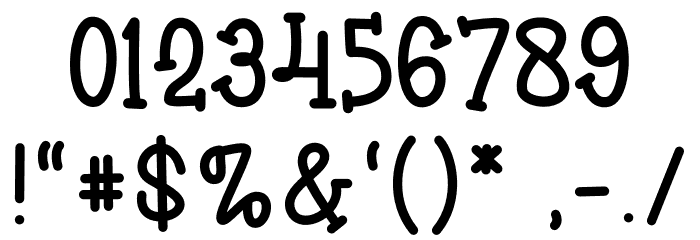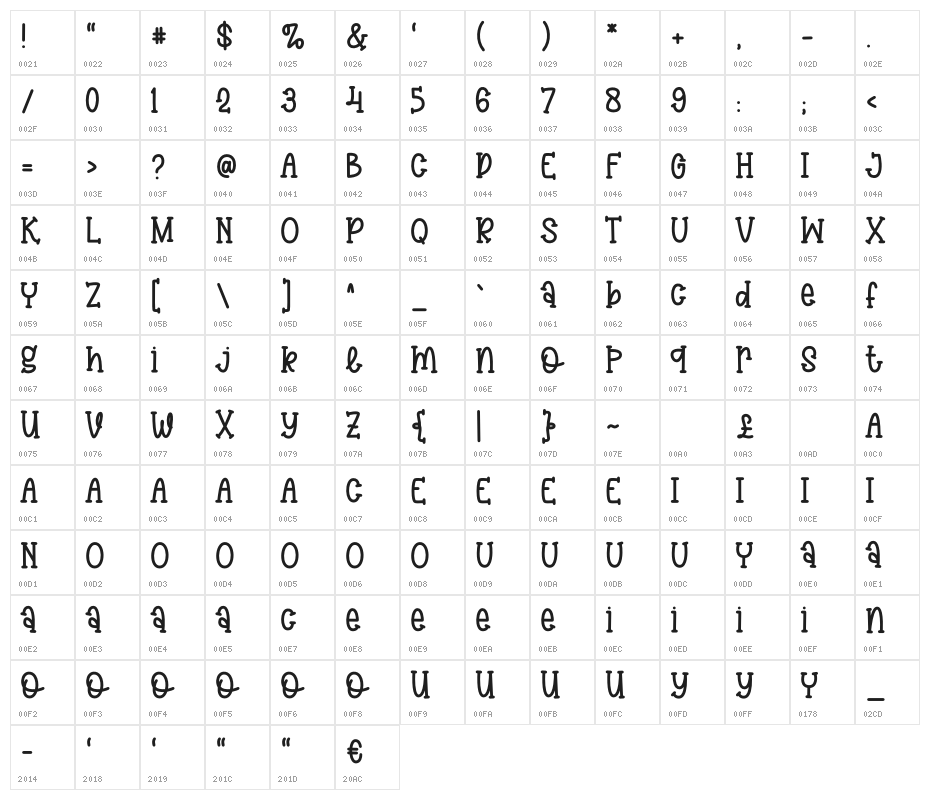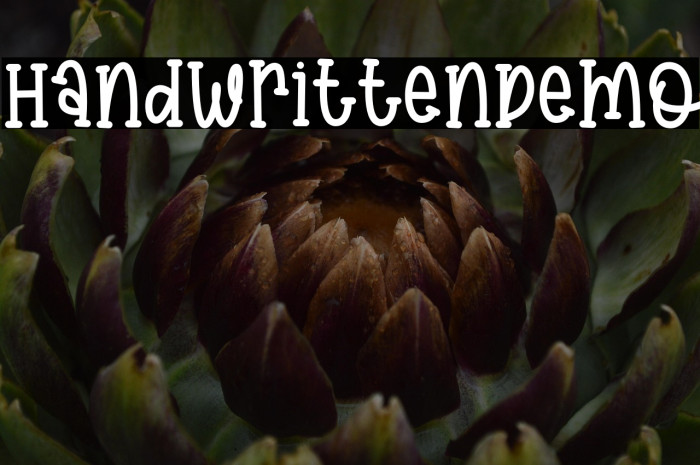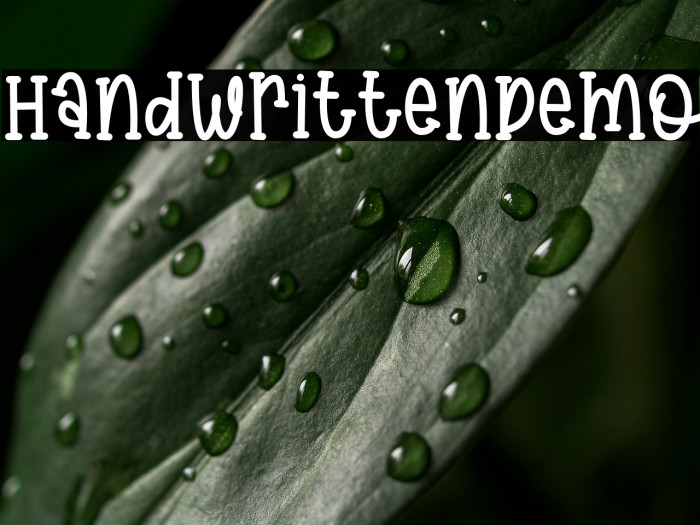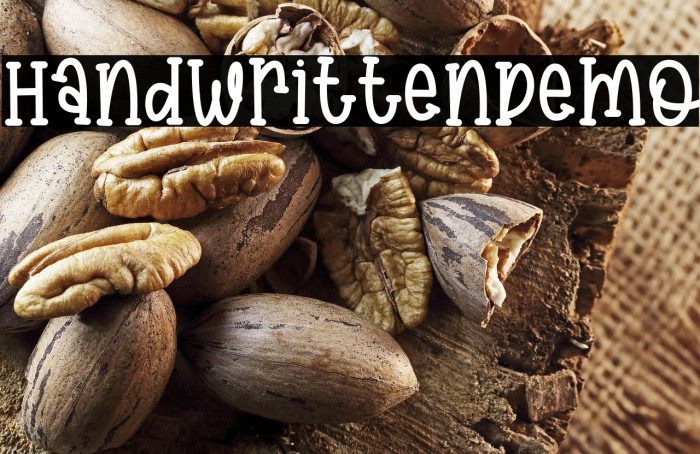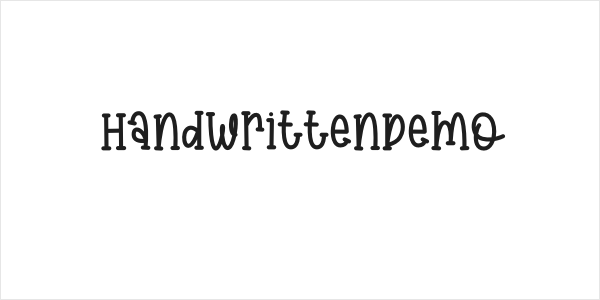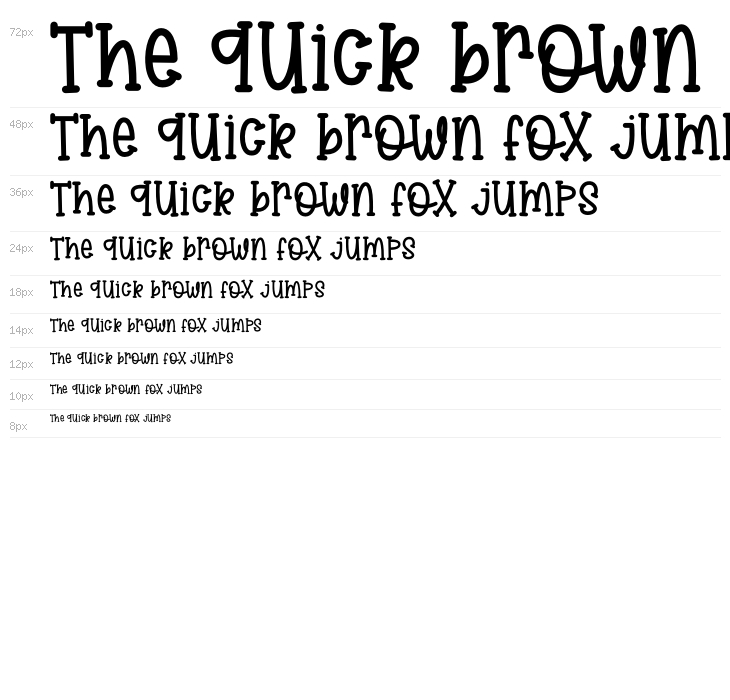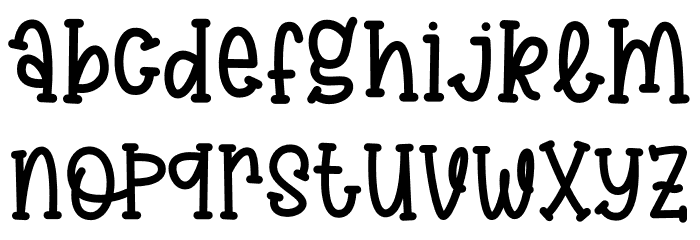
HandwrittenDemo Font
HandwrittenDemo Description
This font exudes a playful and whimsical charm, characterized by its handwritten style that mimics the fluidity and irregularities of natural handwriting. The letters are bold and rounded, with a consistent stroke width that gives it a friendly and approachable appearance. The uppercase and lowercase letters maintain a cohesive look, while the numerals and special characters integrate seamlessly, enhancing its versatility. The font's unique personality is evident in its slightly exaggerated curves and loops, making it ideal for projects that require a touch of creativity and fun.
| Proposed Projects | Great for children's books, greeting cards, playful branding, and creative posters. |